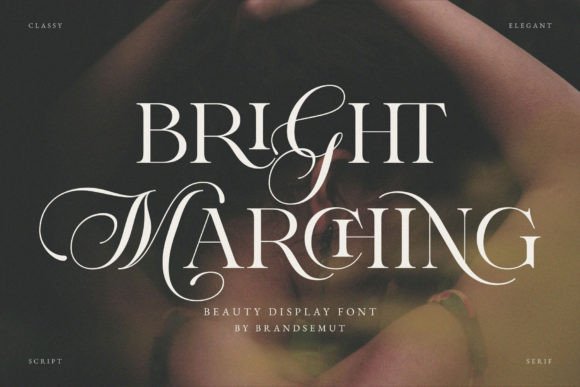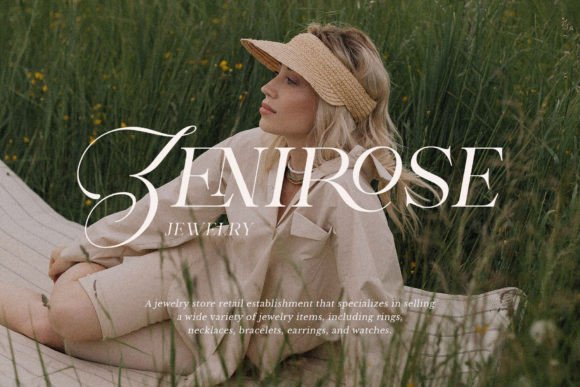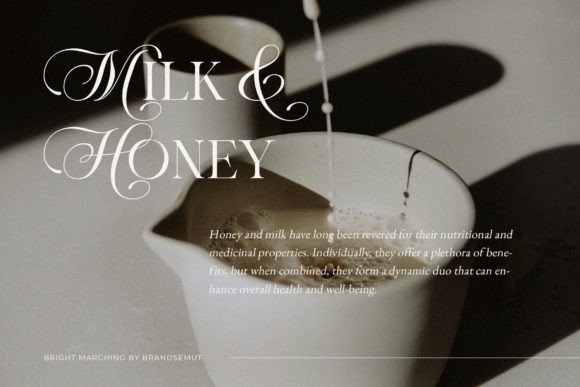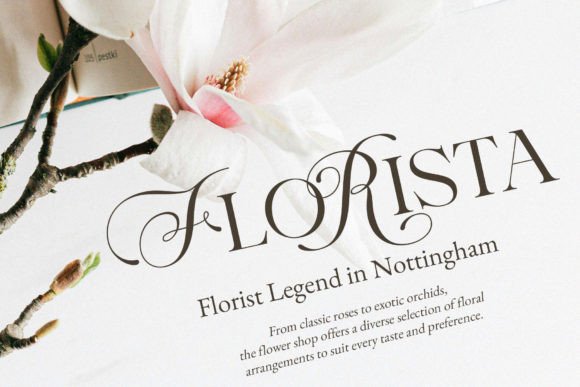
About the Bright Marching Font
Welcome to the world of Bright Marching Font, a typeface that will inspire your next great project. Bright Marching is a stylish serif font that seamlessly blends modern elegance with classic refinement. Its gracefully designed letterforms exude sophistication and versatility, making it an ideal choice for projects that demand a touch of timeless charm. Bright Marching adds a distinctive and polished aesthetic to your typographic expressions.
Bright Marching’s refined elegance makes it particularly well-suited for headlines, logos, and short-form text in branding materials and high-end packaging. It also excels in posters and invitations where a touch of classic sophistication is desired. However, its serif forms and relatively high x-height make it less suitable for extended body text or UI elements requiring high readability at small sizes.
Its sophisticated personality pairs beautifully with clean sans-serif fonts like Open Sans or Lato for a balanced contrast, or with a playful script font like Great Vibes for a touch of whimsy in supporting text. A geometric sans-serif like Futura would add a modern edge, creating a more contemporary feel.
The overall personality of Bright Marching is sophisticated and elegant, yet approachable. It conveys a sense of timeless quality and understated luxury.